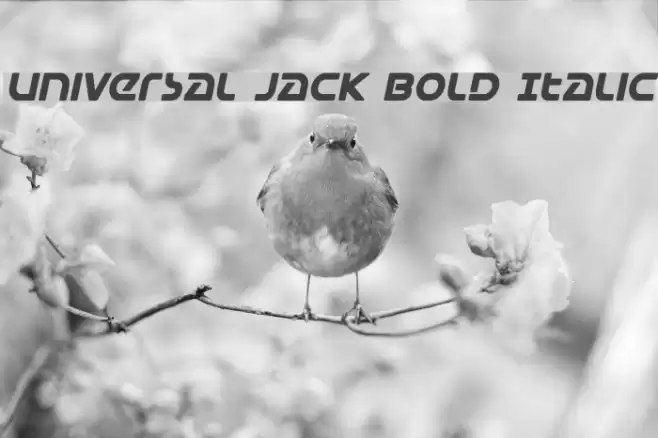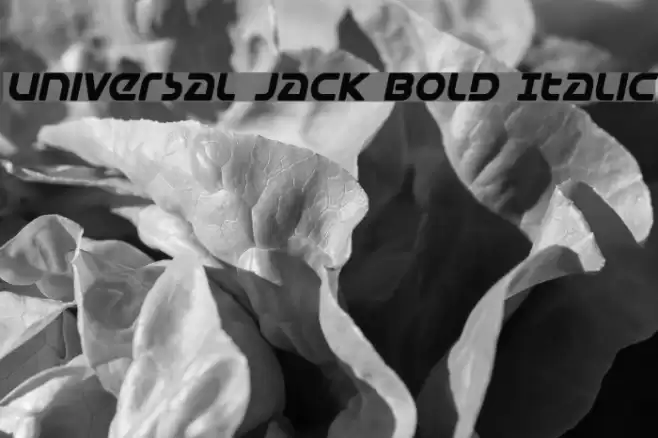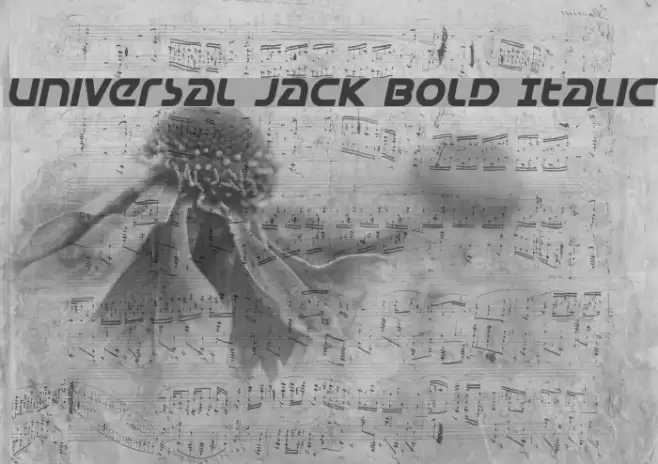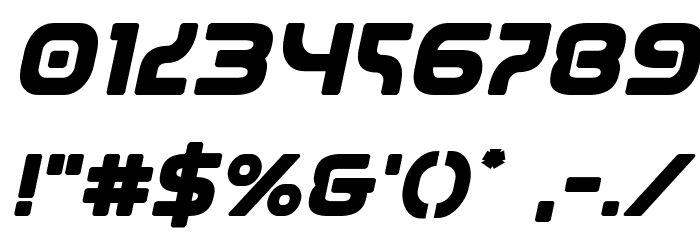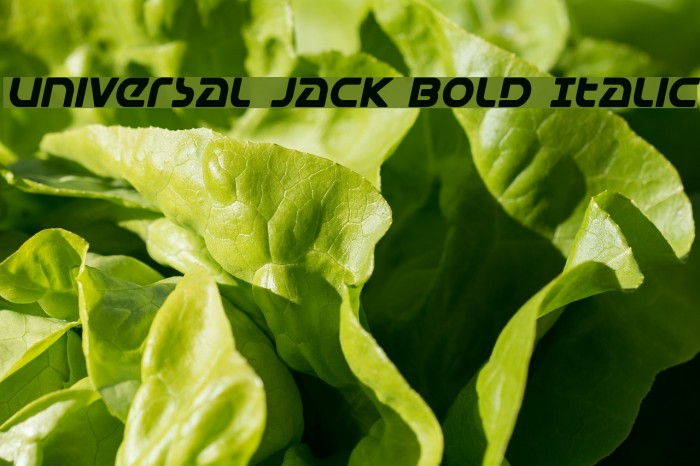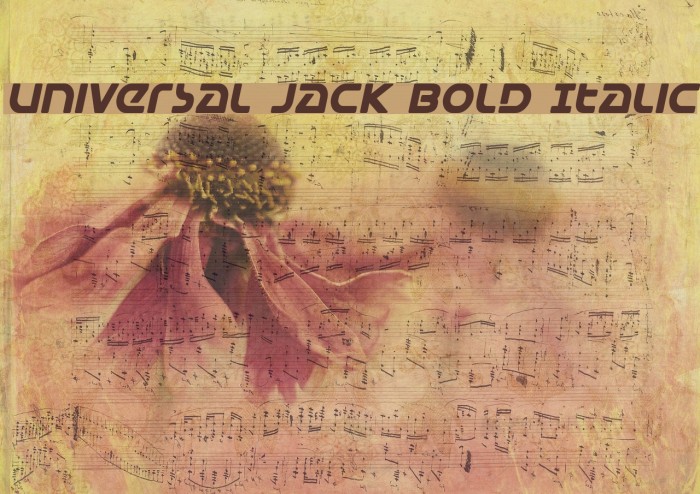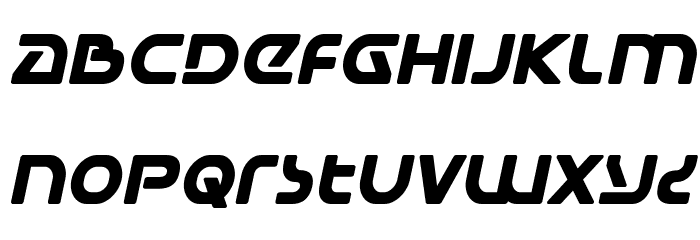
Universal Jack Bold Italic Font
Universal Jack Bold Italic Description
This font exhibits a bold and dynamic style with an italic slant, giving it a sense of movement and energy. The characters are rounded and smooth, with a consistent stroke width that maintains a uniform appearance. The uppercase letters are slightly wider, enhancing their presence, while the lowercase letters maintain a compact form. The numerals are clear and bold, ensuring readability. Special characters are designed to match the overall aesthetic, providing a cohesive look across all glyphs. This font is ideal for projects that require a modern and energetic feel.
A bold, italic font with rounded, smooth characters and a dynamic style from Uncategorized fonts.
- Proposed Projects: Ideal for sports branding, dynamic advertising, modern logos, and energetic headlines.
- Use Case: Headlines, Logos, Advertising